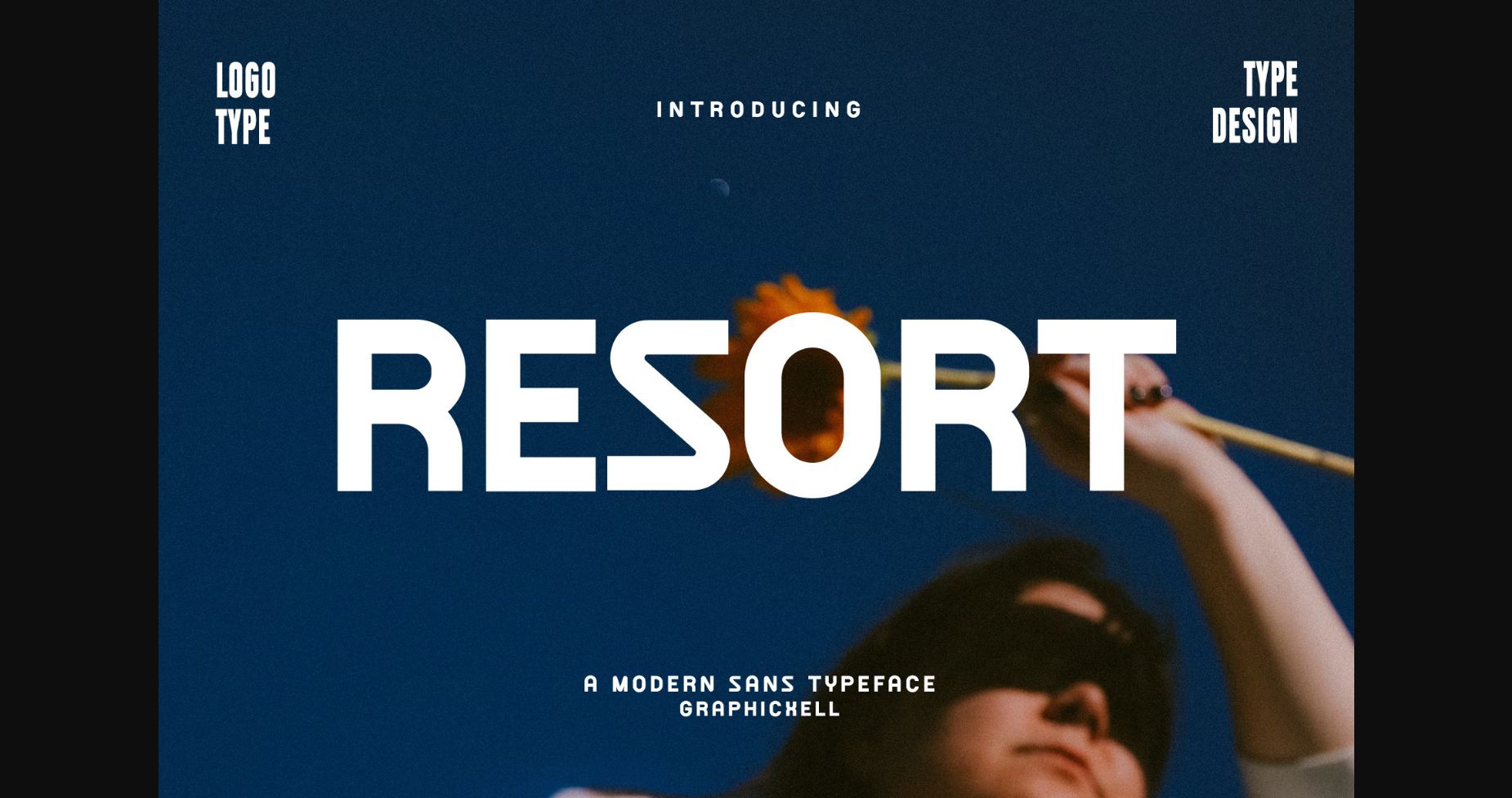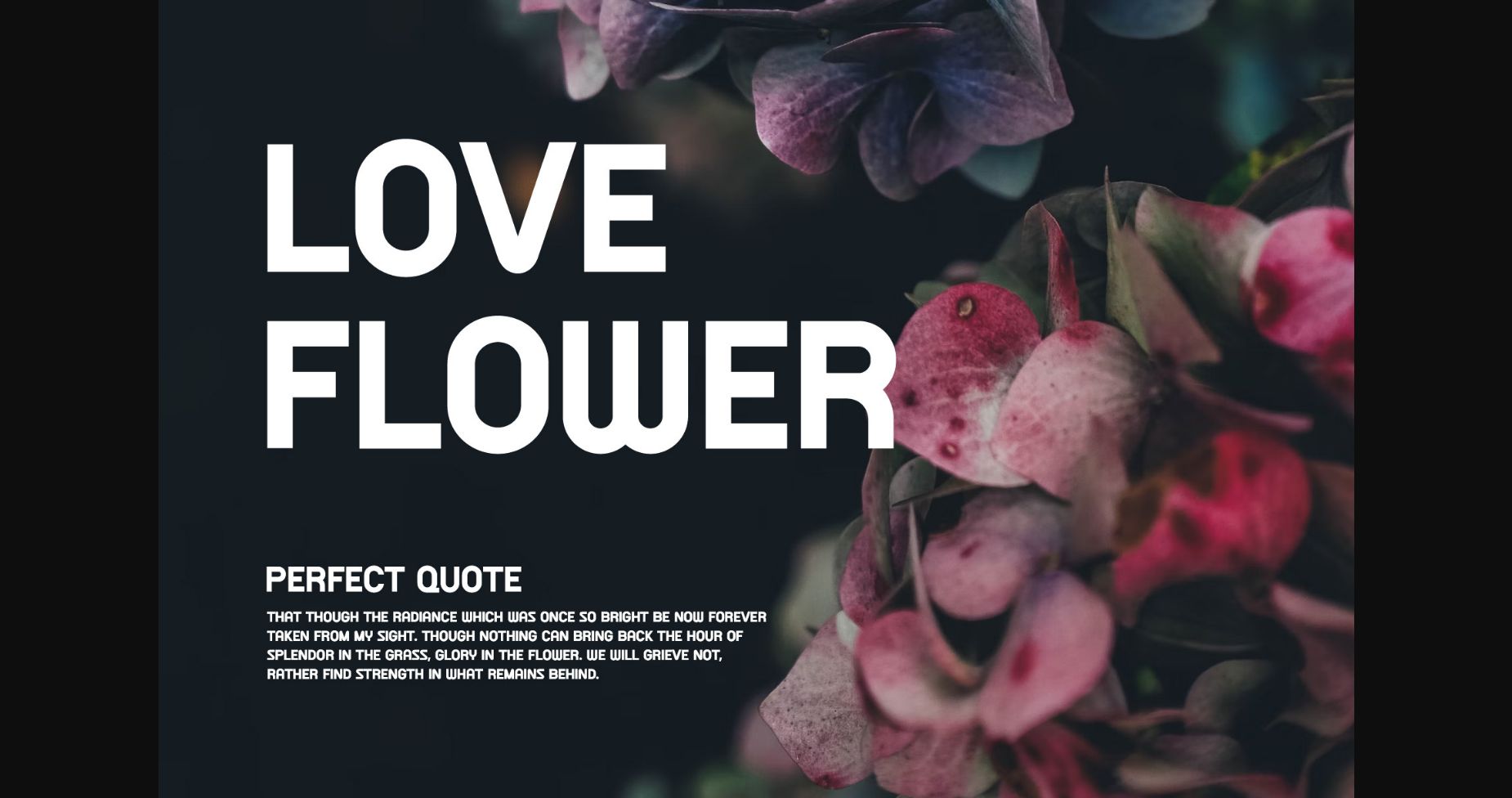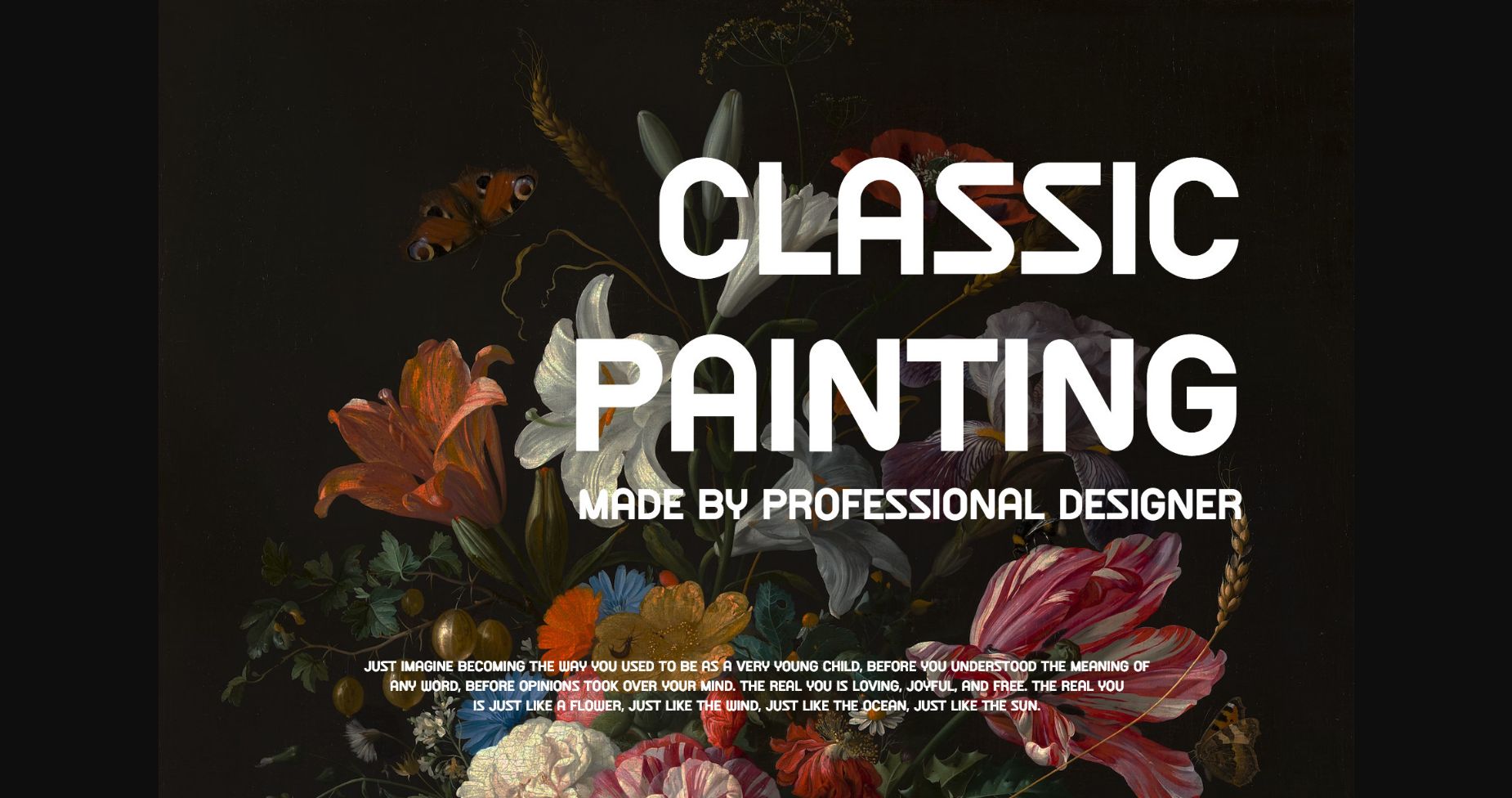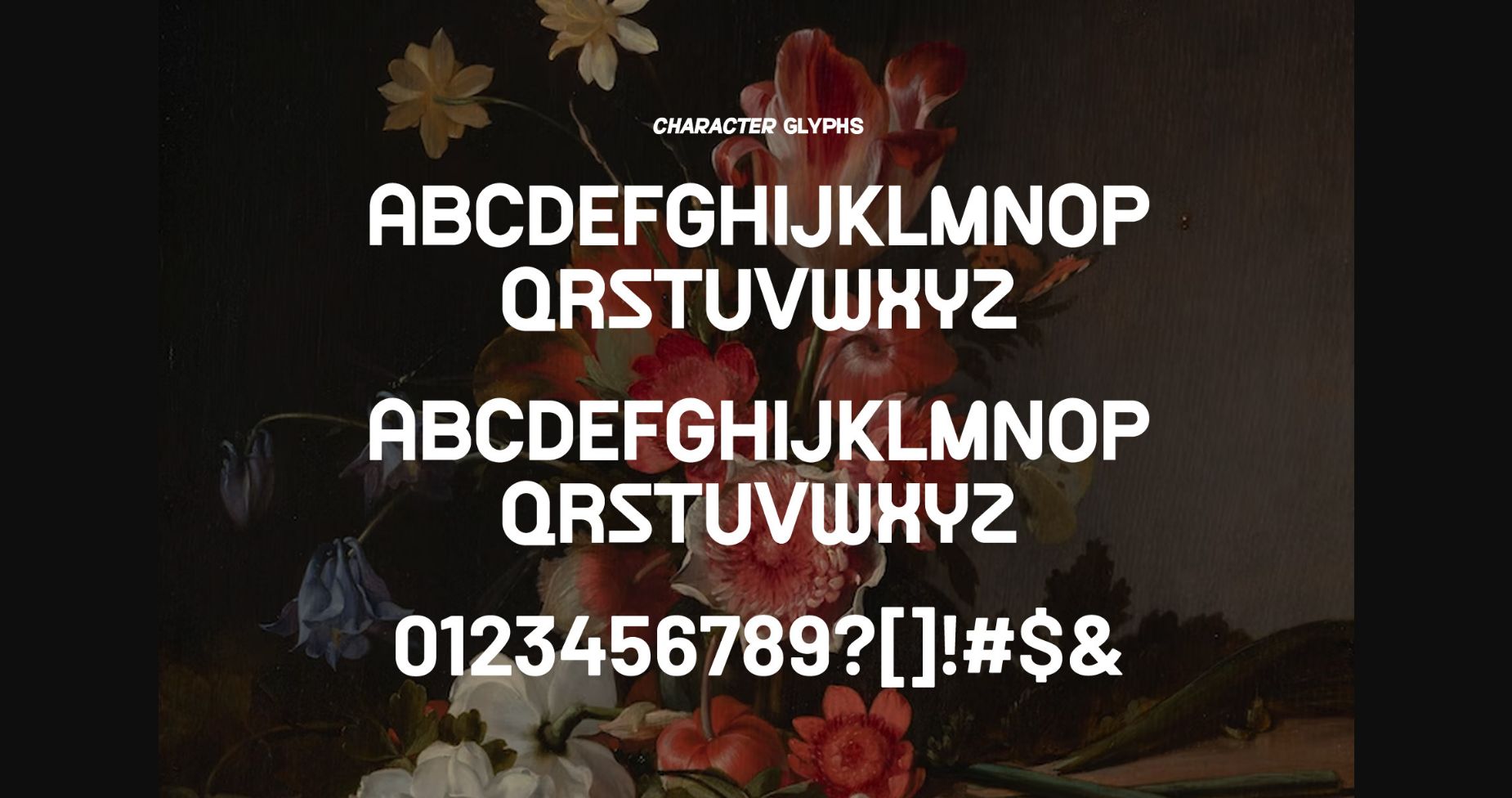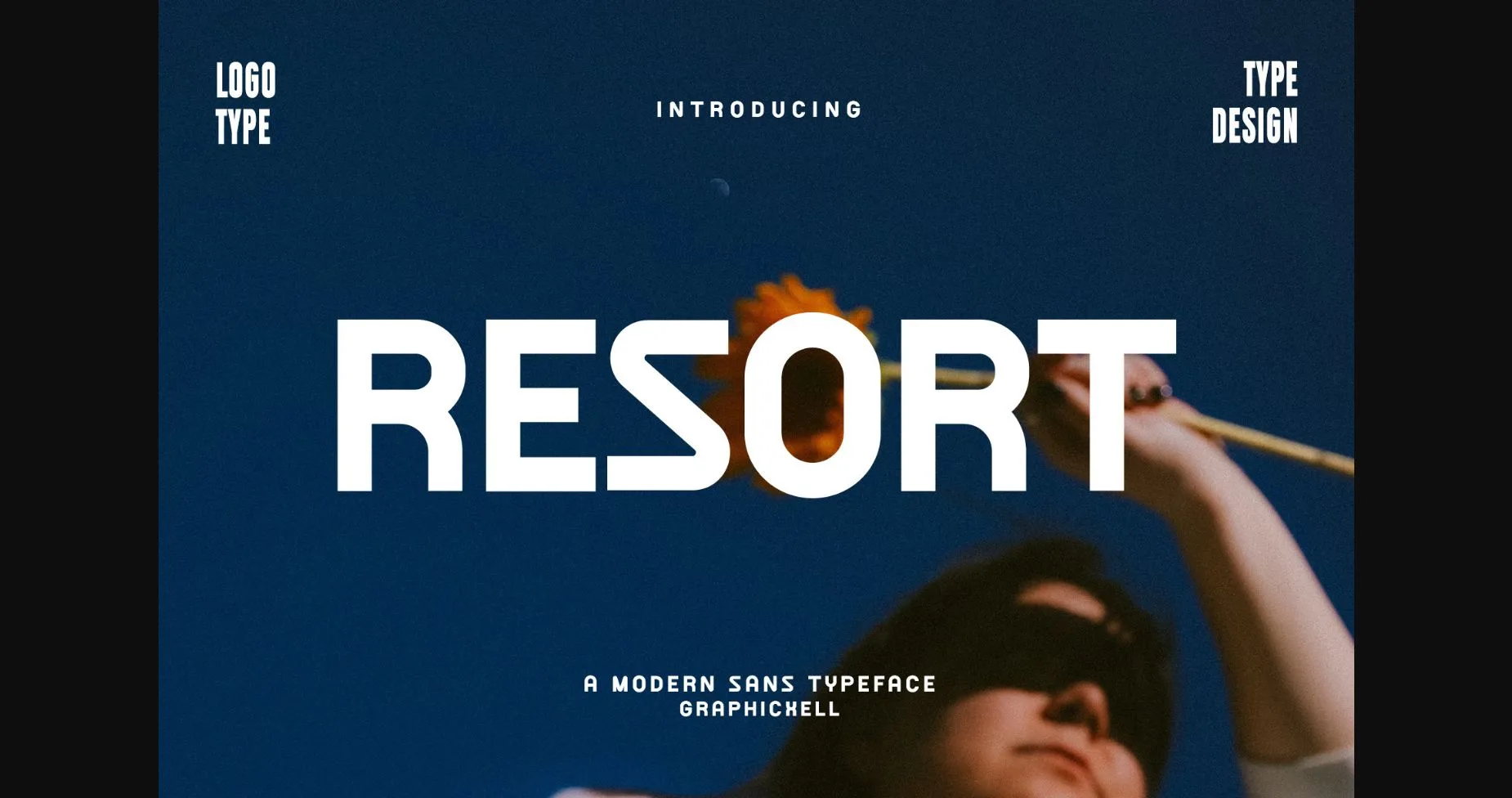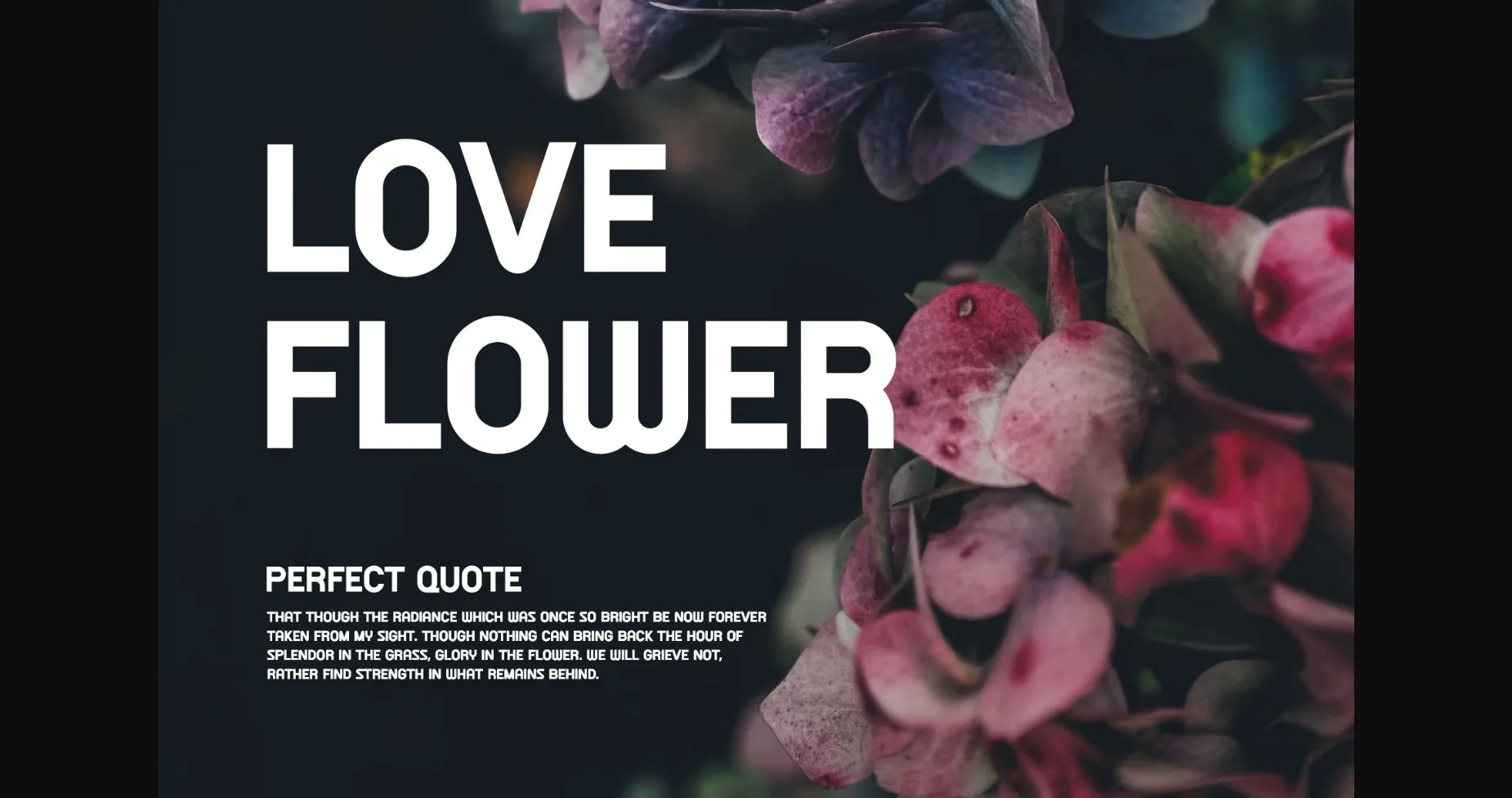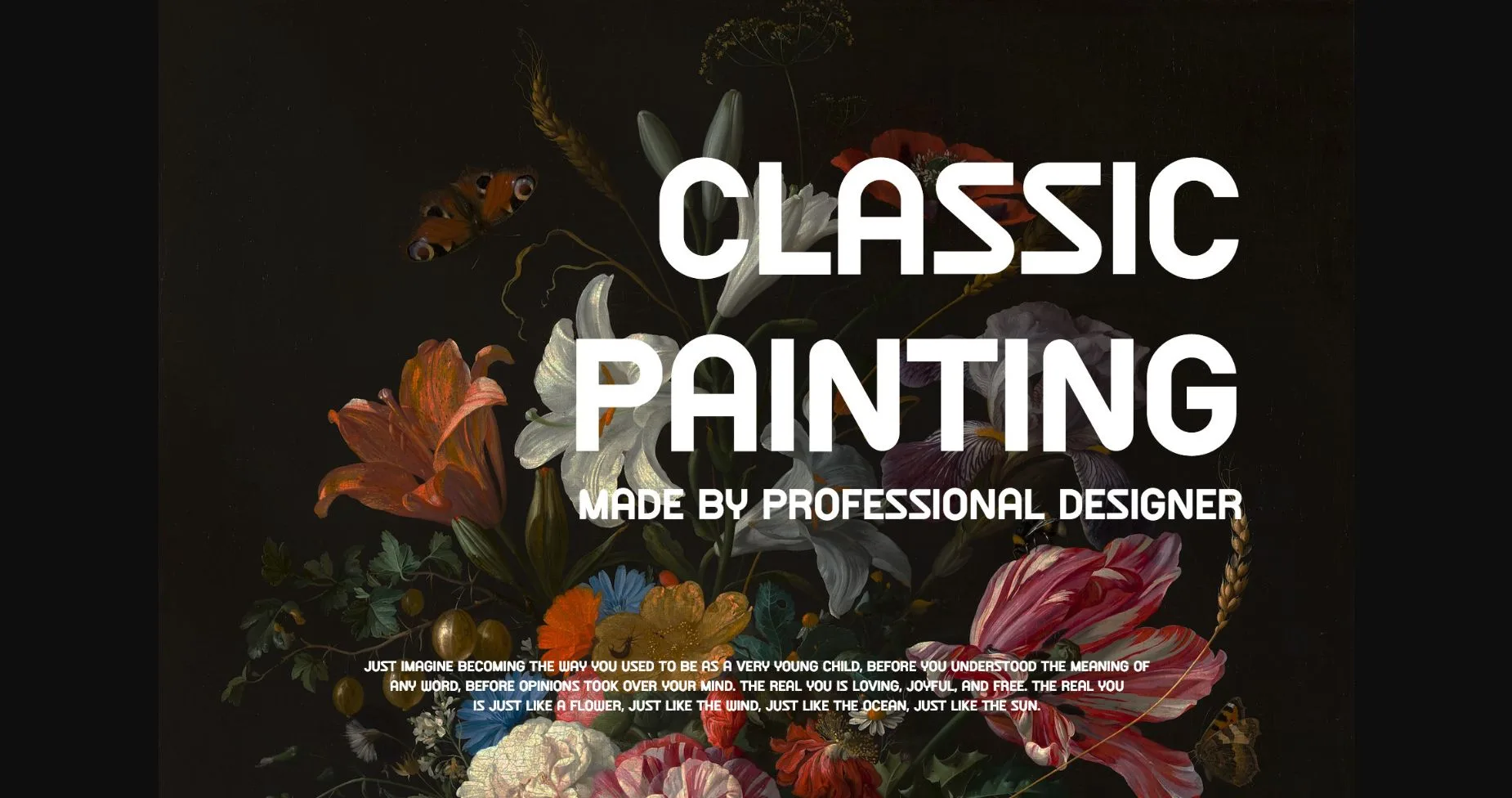
HomeSans Serif FontsResort Font Sans Serif Fonts Resort Font FacebookXPinterestWhatsApp 1 of 6 ... Resort Font Poster 2... Resort Font Poster 3... Resort Font Poster 4... Resort Font Poster 5... Resort Font Poster 6... About Resort Font Resort is a sans-serif font that is sleek and modern, with rounded edges and a balanced, even weight. It has a friendly, inviting feel, and works well for both body and headline text. Perfect for any project! DOWNLOAD NOW People also explored Kumadinya Thai Matcha Font Holiday Park Font Just Overthink Font Another Monday Dark Grey Bella Canvas 3001 Funky Mockup Home Stay Font Baudot Klicktights Script Font 638 0 TagsResortResort Font Previous articleEmonkeys FontNext articleFouiroll Font LEAVE A REPLY Cancel reply Comment: Please enter your comment! Name:* Please enter your name here Email:* You have entered an incorrect email address! Please enter your email address here Website: Save my name, email, and website in this browser for the next time I comment. Personal Use Free Single Sleeve Personal Use Free Read more about this font Engebrechtre Personal Use Free Read more about this font Shkoder 1989 Personal Use Free Read more about this font Denisha Personal Use Free Read more about this font BLOG Using Fonts in Digital Marketing: Tips to Strengthen Your Brand Identity In the realm of digital marketing, every visual element plays a crucial role in shaping a brand's identity, and fonts are no exception. The... Best Fonts for T-Shirt Design – Top 2025 Picks Modern Sans-Serif Fonts That Brands Love in 2025 How to Cut Any Font on Cricut: Convert a Font to SVG (Free)